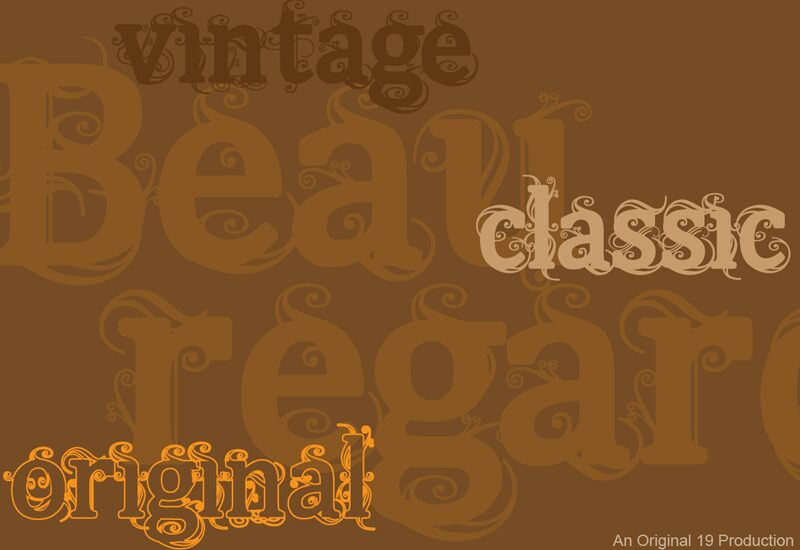
Beauregard Hollow is a free ornamental display font with hollow letterforms and curling, vine-like flourishes. Its broad, rounded shapes combine Victorian-style decoration with lively loops that weave through the letters and extend beyond their edges, and fine hooked endings gently sharpen the otherwise soft silhouette throughout.
The lettering can turn a title into an illustrated emblem rather than a neutral line of type. Its theatrical curves suit fantasy posters and storybook covers, where the repeated spirals can echo borders, foliage, or hand-drawn decoration. It also belongs on boutique packaging, event invitations, and music merchandise with an ornate, slightly eccentric theme.
Beauregard Hollow